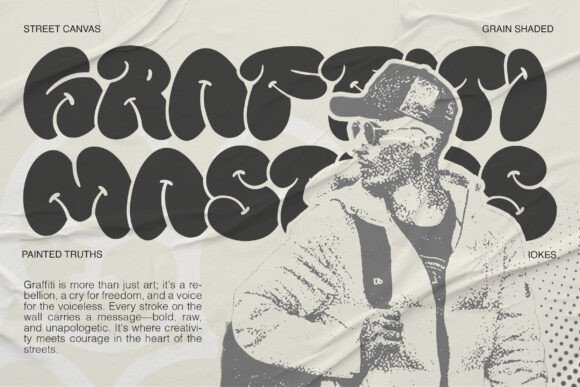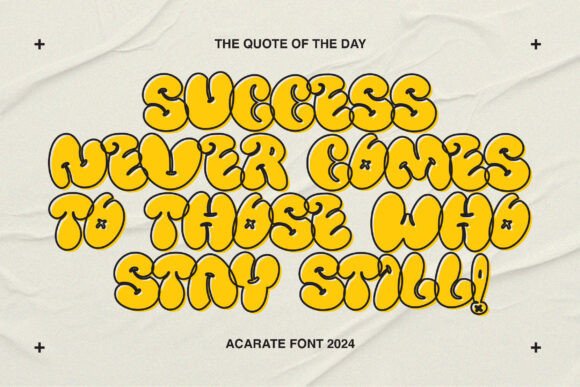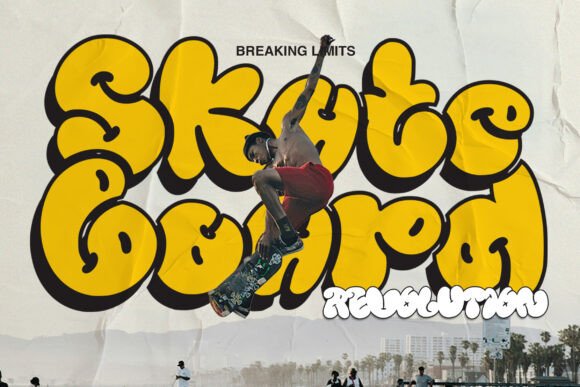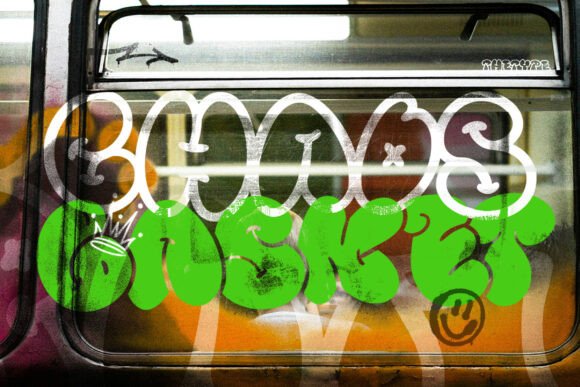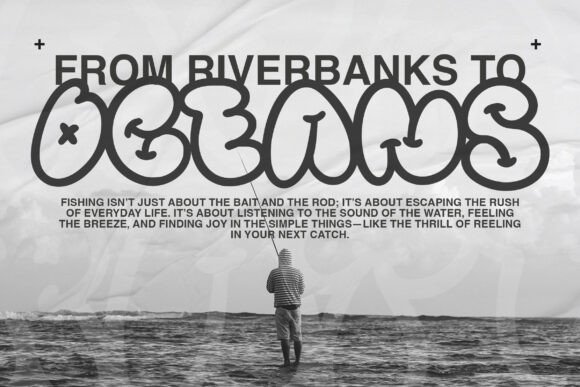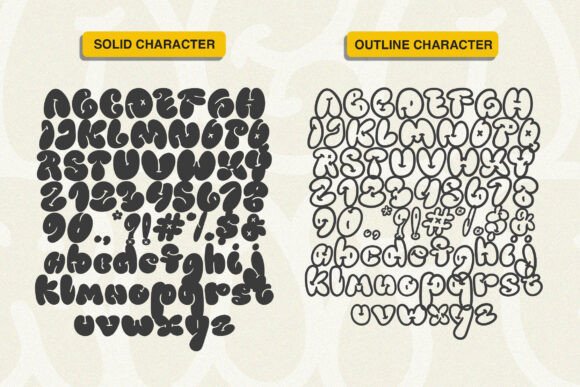
The Acareta Font: A Groovy Display Font to Elevate Your Designs
Have you ever been in the middle of a design project, and suddenly, you’re stuck on finding the perfect font? I recall a recent experience where I was working on a branding project for a trendy coffee shop, and I just couldn’t find a font that captured the right vibe. That’s when I stumbled upon the Acareta font, and it completely transformed my design. In this article, I’ll share my journey with the Acareta font, its features, and how to make the most of it in your designs.
First Impressions: A Stylized Rounded Groovy Display Font
The Acareta font is described as a stylized rounded groovy display font, and trust me, it lives up to its name. It’s perfect for adding a touch of modernity and playfulness to your designs. With its unique blend of rounded edges and groovy vibes, Acareta can add a level of expressiveness to your text that will make it stand out.
- Unique and eye-catching design that’s perfect for display text ✅
- Rounded edges give it a friendly and approachable feel 👫
- Groovy vibes add a level of playfulness and modernity to designs 🎉
- Supports OpenType features, glyphs, and stylistic alternates for added versatility 📈
- May not be suitable for body text due to its display-focused design ⚠️
- Some characters may not be suitable for use at small sizes, due to the intricate design 🔍
The Acareta font was designed with the intention of creating a unique and eye-catching display font. The designer aimed to capture the spirit of the groovy and playful design trends of the past, while still making it modern and versatile. Although the real backstory of Acareta font might not be publicly known, it’s clear that the font was created with the goal of adding a touch of personality to designs.
| Font Name | Acareta Font |
| Author | The_Type |
Q: What type of projects is the Acareta font best suited for?
A: The Acareta font is best suited for projects that require a unique and eye-catching display font, such as branding, packaging, or advertising.
Q: Can I use the Acareta font for body text?
A: While it’s possible to use Acareta for body text, it’s not recommended due to its display-focused design. It’s better suited for headlines, titles, or short paragraphs.
Q: Does the Acareta font support OpenType features?
A: Yes, the Acareta font supports OpenType features, glyphs, and stylistic alternates, making it a versatile choice for designers.